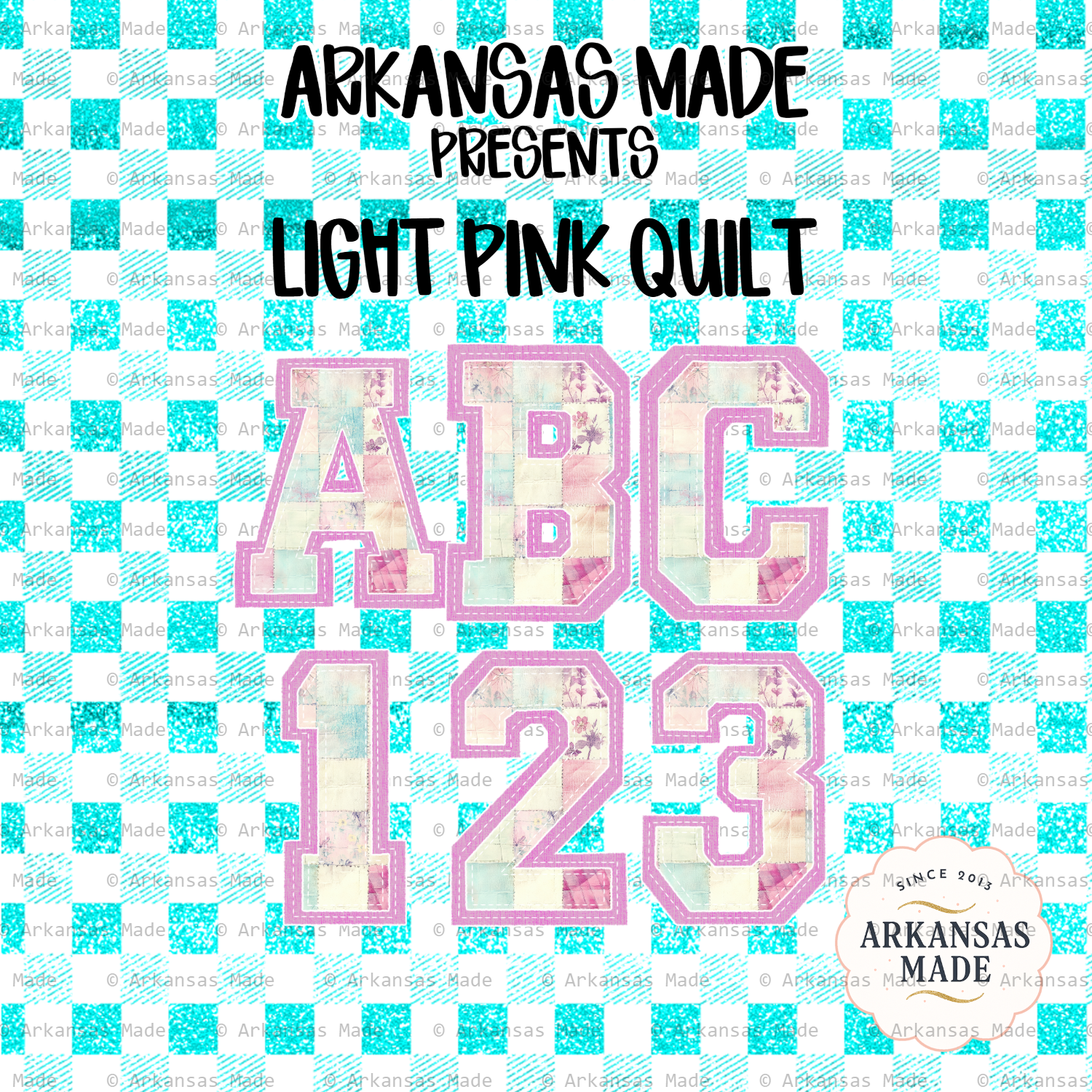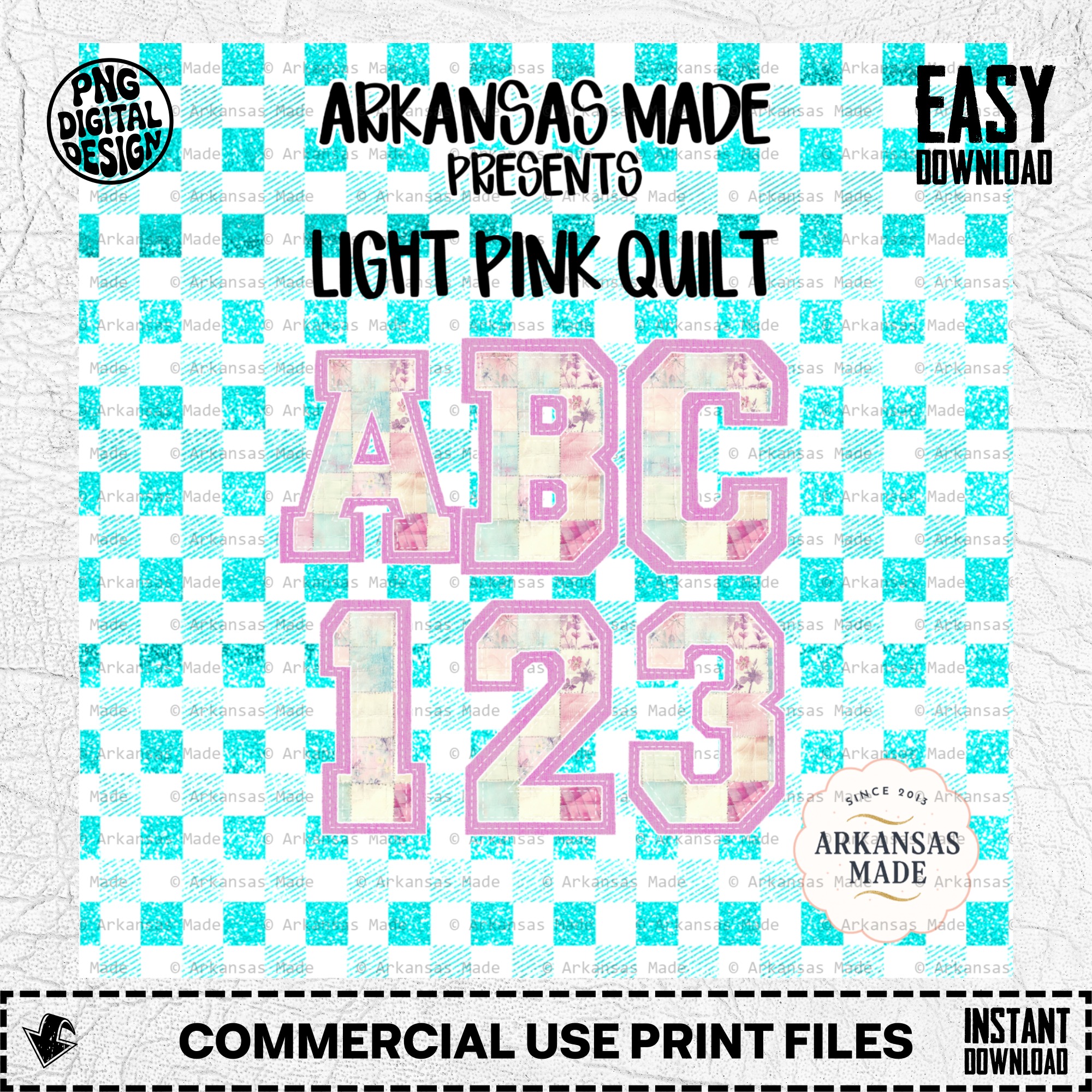
Light Pink Quilt Alpha PNGs | Patchwork Quilted Letter & Number Digital Clipart Set | Shabby Chic Floral Font for Sublimation Crafts
Elevate your crafts with Light Pink Quilt Alpha PNGs, a charming digital letter and number set featuring a patchwork quilted effect. Perfect for sublimation and personalized gifts! This collection exudes a cozy, feminine, and vintage-inspired vibe, ideal for creating unique items for baby showers, nurseries, or heartfelt gifts for moms and crafters. Infuse your designs with the nostalgic charm of a beautifully printed quilted pattern, bringing warmth and character to every project.